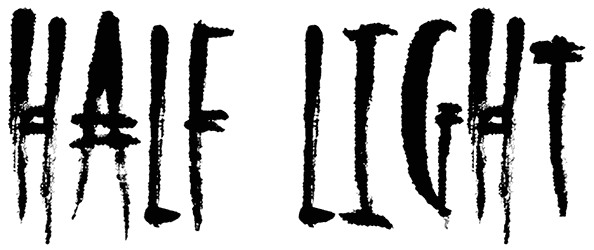
Half Light Font
With a bold and faded look, Half Light font gives a cold and terrifying vibe to your texts that can only be seen in criminal record documents. This horror font can be used in scary and dramatic movie titles, game names,…
With a bold and faded look, Half Light font gives a cold and terrifying vibe to your texts that can only be seen in criminal record documents. This horror font can be used in scary and dramatic movie titles, game names, amusement park banners, informal headlines, and club event banners. This evil font consists of all-caps characters with eroded designs.